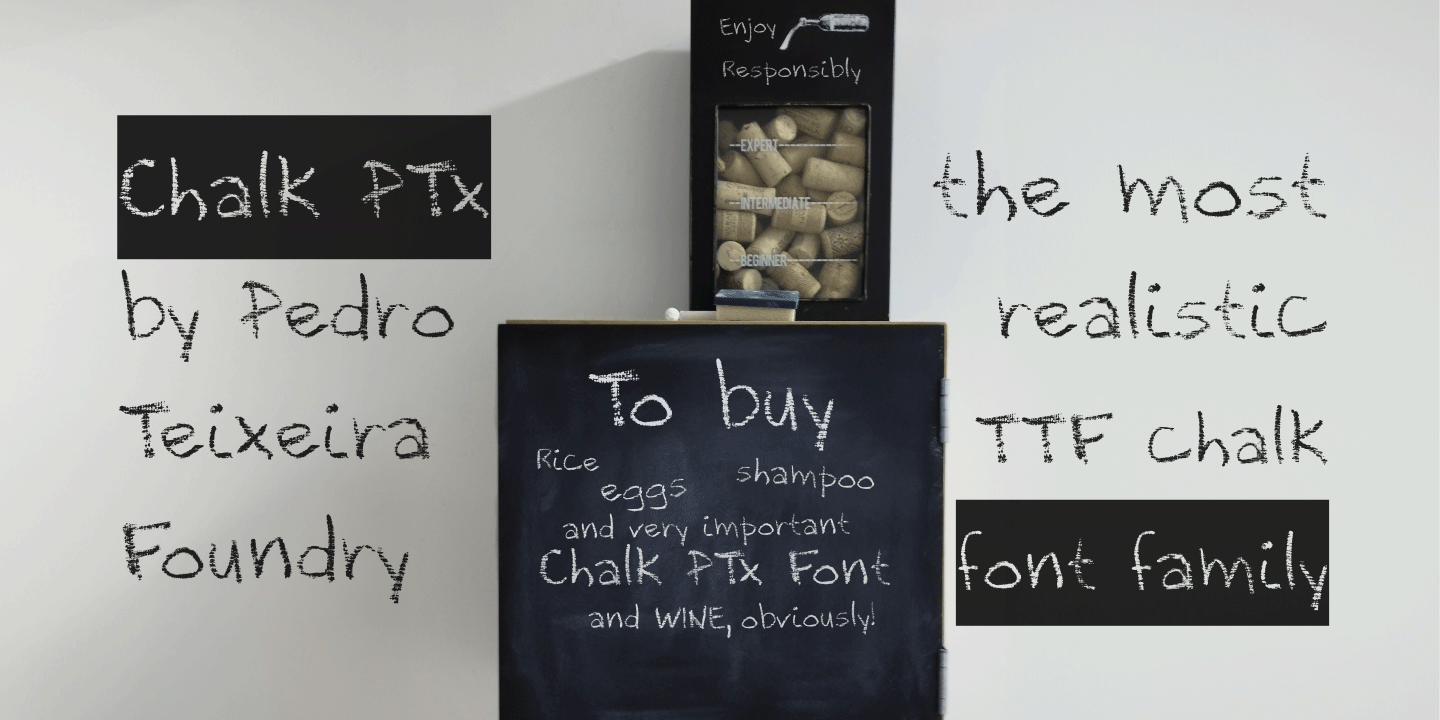
Chalk PTx is a textured handwritten display font by Pedro Teixeira Foundry. Its rough, chalk-like appearance is intended for short seasonal messages, greeting cards, party invitations, festive graphics, posters and playful headings. The uneven surface is part of the design, so previewing the actual wording at both small and large sizes helps determine whether the texture remains clear for the intended output.